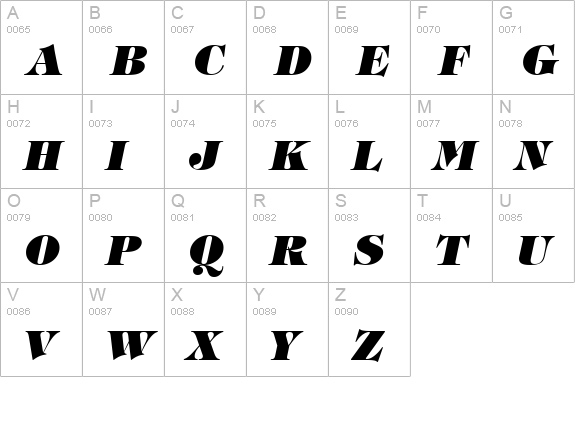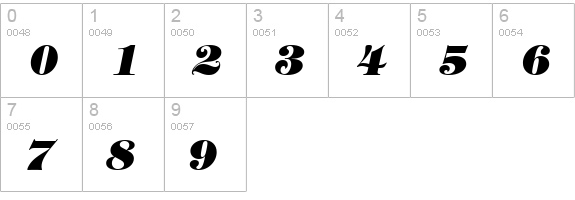
Tiffany Heavy Italic BT is a heavy, high-impact, italic variant in the Tiffany typeface family \xE2\x80\x94 well suited to high-impact headlines, posters, and display advertising.
Tiffany Heavy Italic BT is a stunning and elegant font that exudes a sense of sophistication and class. With its bold and slanted letterforms, this typeface is perfect for adding a touch of luxury to any design project. The elaborate curves and intricate details of Tiffany Heavy Italic BT make it a standout choice for titles, headlines, and logos. Its sleek and stylish appearance captures attention and creates a lasting impact. Whether used in print or digital media, this font is sure to make a statement. What sets Tiffany Heavy Italic BT apart is not only its exquisite design but also its versatility. It can effortlessly adapt to various design styles, from modern and minimalist to vintage and ornate. The font's italicized form adds a touch of dynamism and movement, making it a great choice for projects that require a sense of energy and excitement. And the best part? Tiffany Heavy Italic BT is freely available to download at FontsMarket.com. This means that you can enhance your designs with this awe-inspiring font without any cost. Whether you are a professional designer or a casual enthusiast, having access to this remarkable typeface will undoubtedly elevate your creative endeavors. So why wait? Download Tiffany Heavy Italic BT today from FontsMarket.com and unlock a world of endless design possibilities. Embrace the elegance, versatility, and free availability of this font, and watch as your designs come to life with a touch of timeless sophistication.